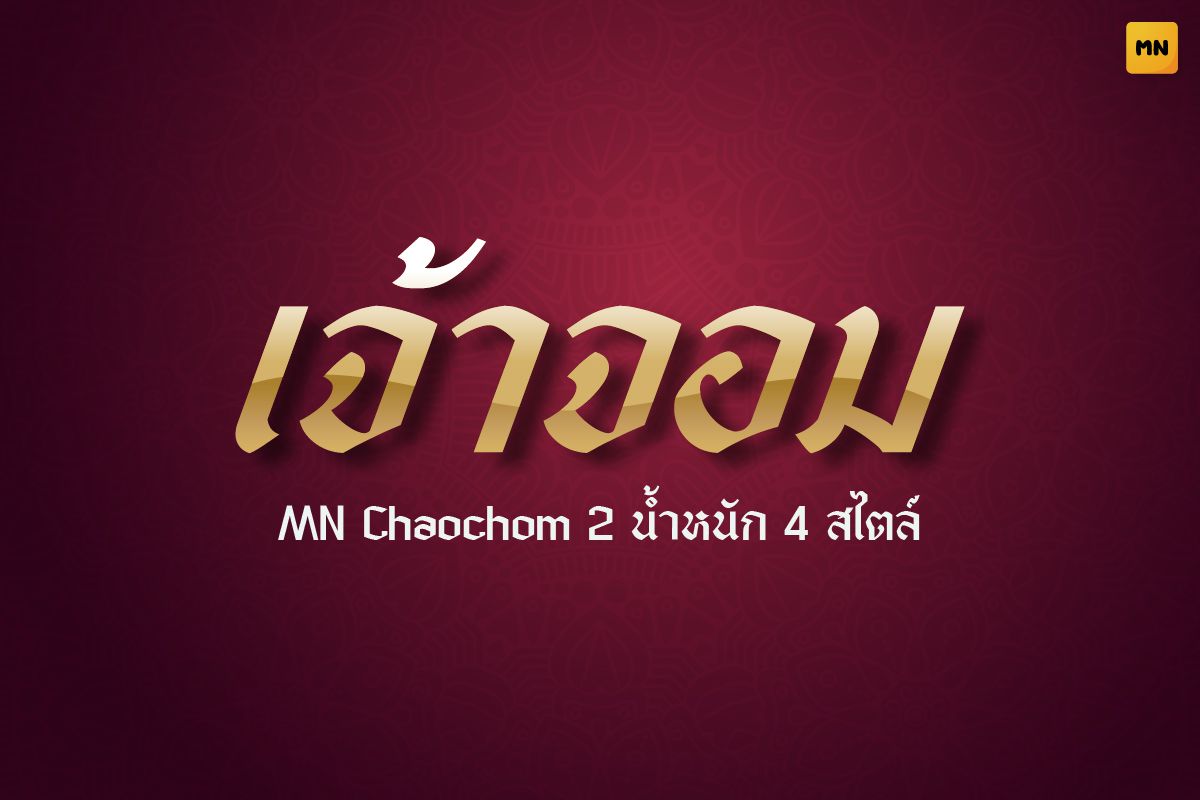
MN Chaochom Bold Italic
A refined Thai display font with elegant proportions and sharp curves. Its graceful structure evokes luxury and sophistication.